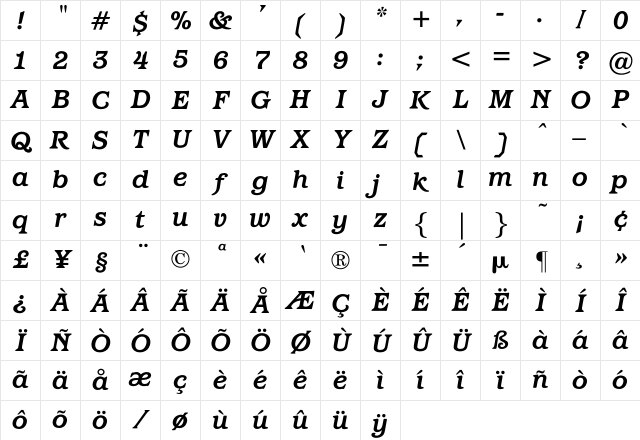
Complete OPTIBarmay-BoldItalic Regular glyph index. Displaying only characters natively supported by OPTIBarmay-BoldItalic Regular font.
OPTIBarmay-BoldItalic is a composed and adaptable typeface that performs quietly and consistently across a wide range of design contexts. The slanted form adds forward momentum and visual energy. Its bold stroke weight gives it real presence on the page.
Pro Tip: Use OPTIBarmay-BoldItalic for emphasis, pull quotes, and subheadings where its slanted energy can add rhythm to the layout.